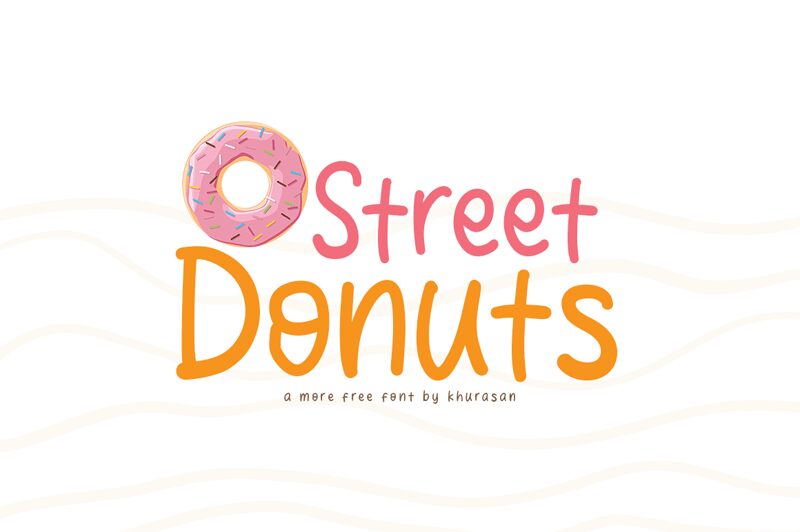
Street Donuts
Street Donuts, designed by Khurasan, is a unique and playful handwritten font that is perfect for a wide range of creative projects. Its semi-light weight gives it a modern and stylish feel, making it an ideal choice for posters, logos, magazines, book covers, banners, and more. The cute and whimsical design of Street Donuts adds character to any project, helping it to stand out from the crowd.
Whether you're working on a fun and lighthearted design or something more sophisticated and elegant, Street Donuts can be easily matched to a variety of projects. Its versatility makes it a valuable addition to any designer's toolkit. Try using Street Donuts in your next creative endeavor and see how it can elevate your work with its charming style and modern appeal.